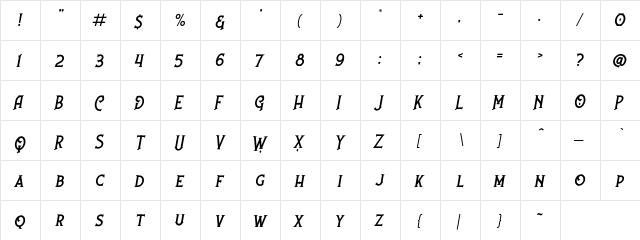
Nufced DEMO Italic
| Foundry | Twicolabs Fontdation |
| Designer | Twicolabs Fontdation |
Design Context for Nufced DEMO Typeface
Nufced DEMO takes a measured approach to typography — its balanced proportions and neutral character make it a reliable workhorse for both digital and print work. Its italic angle brings a sense of urgency and motion to the letterforms.